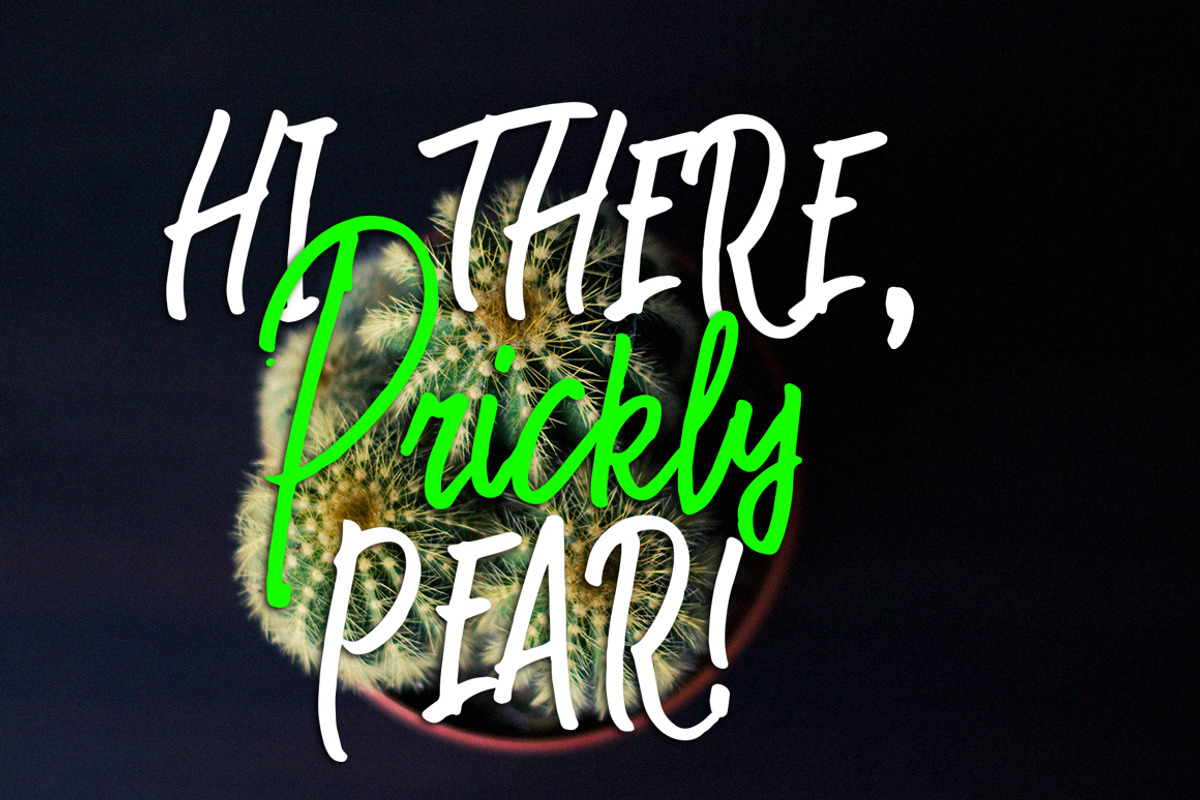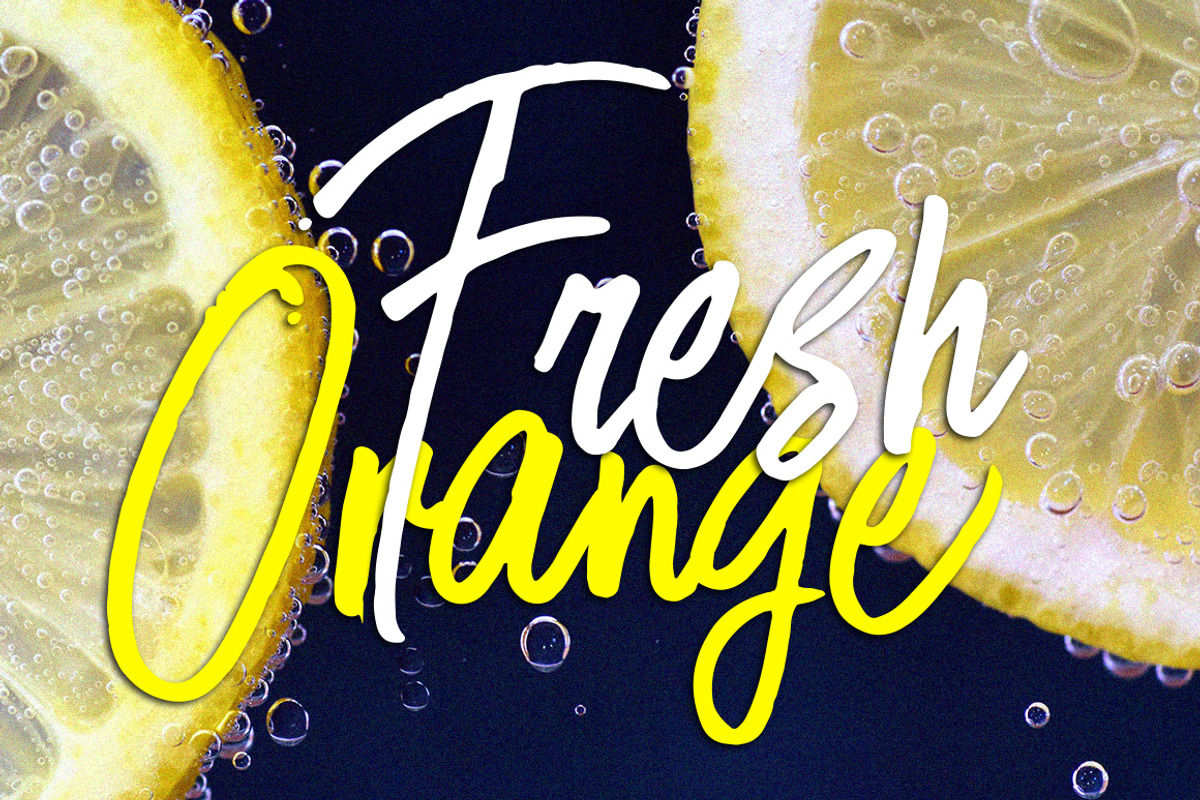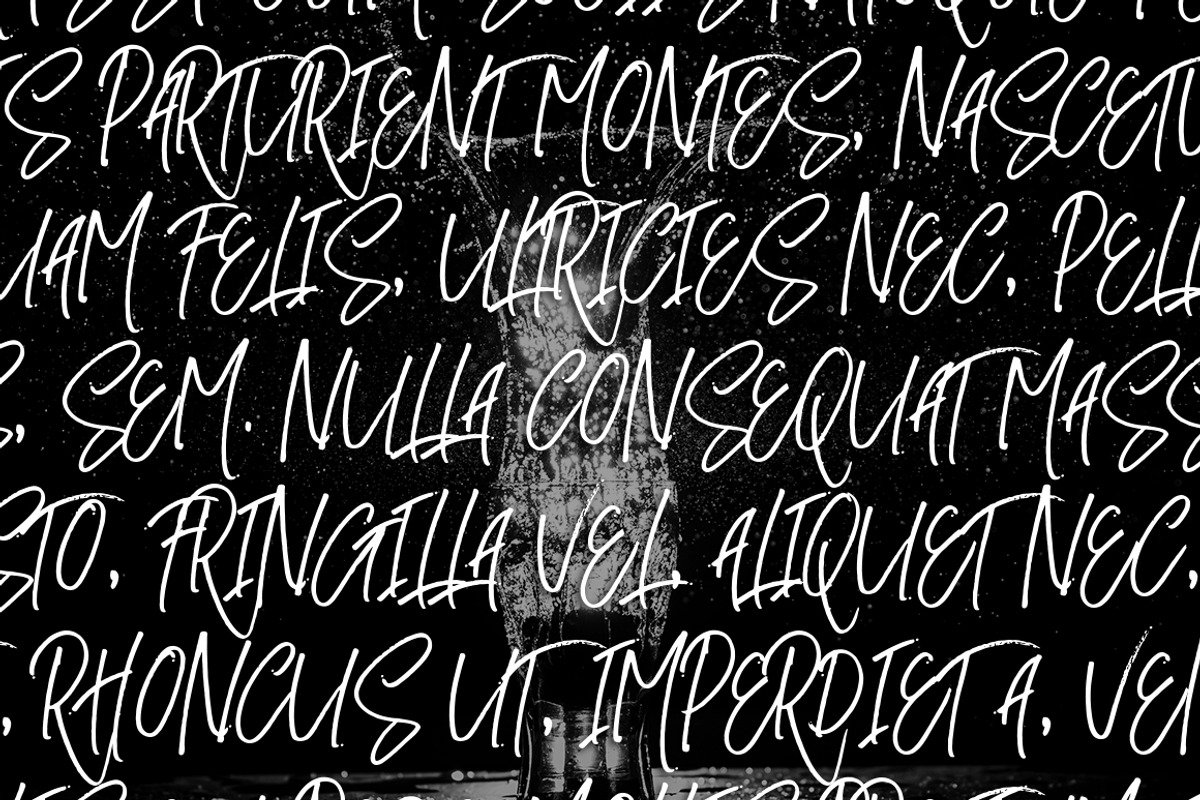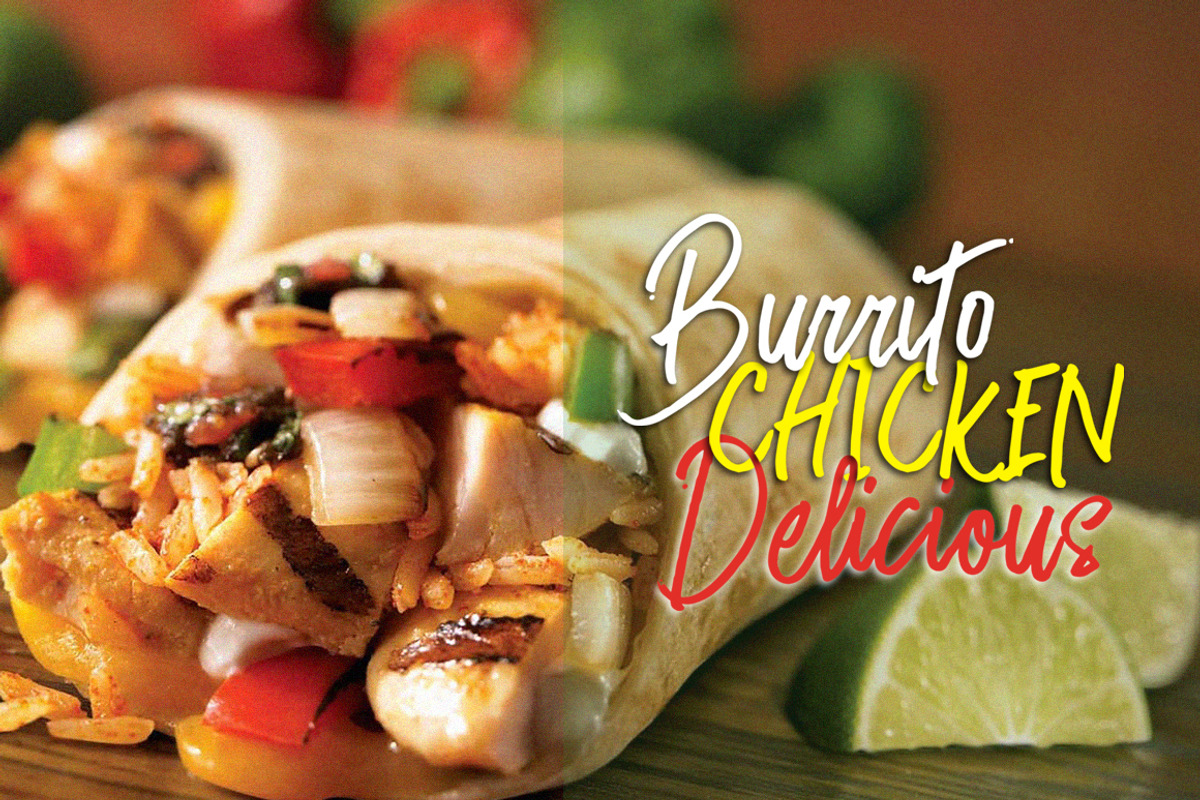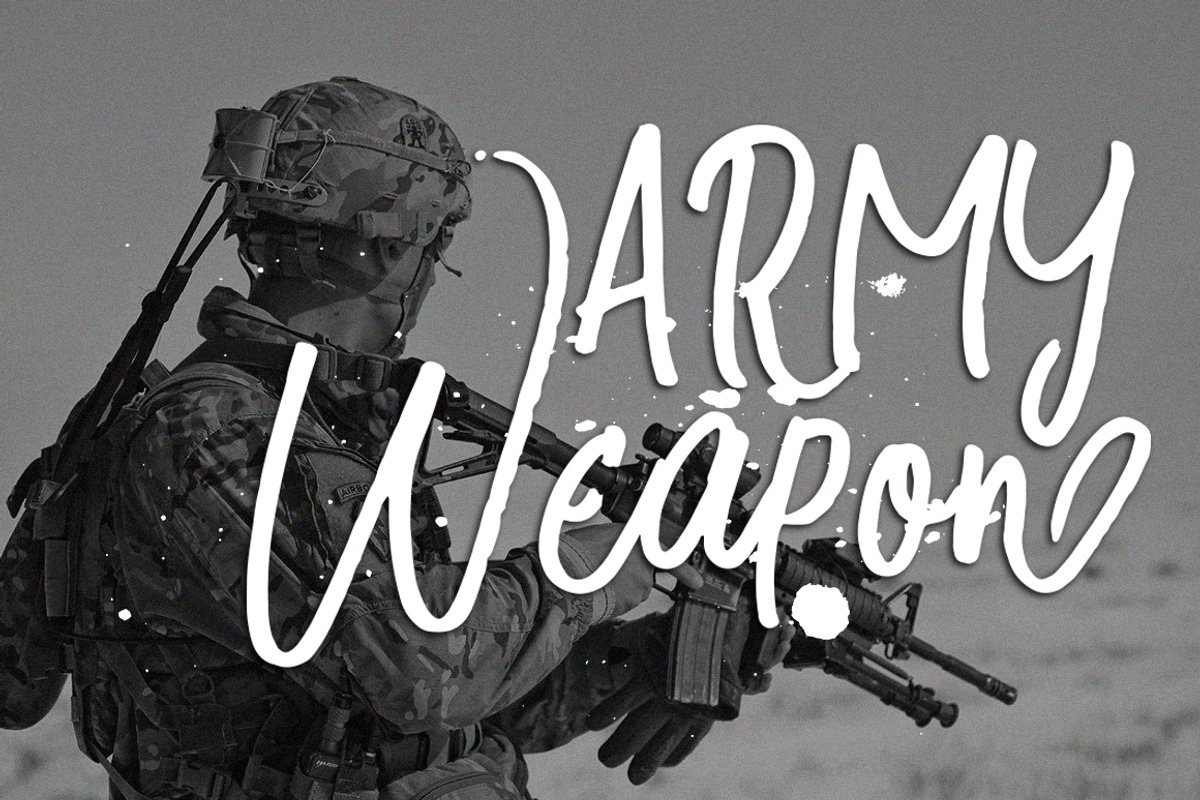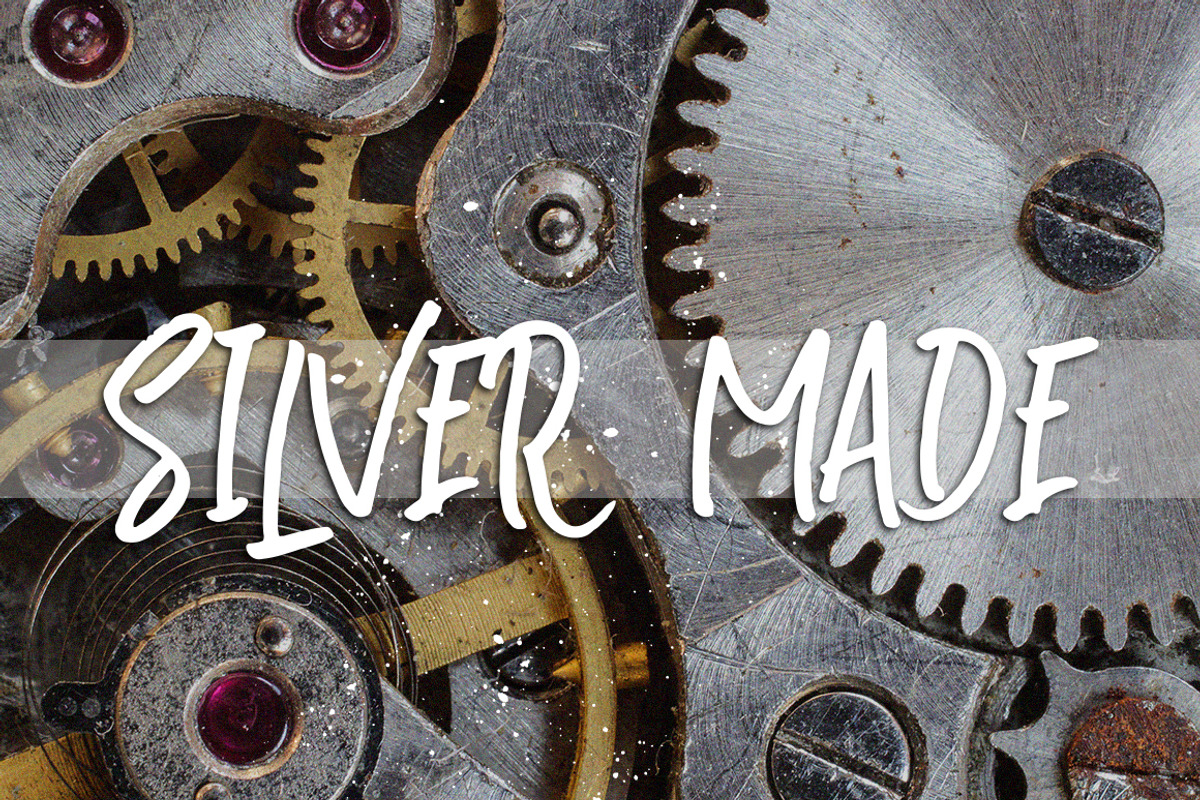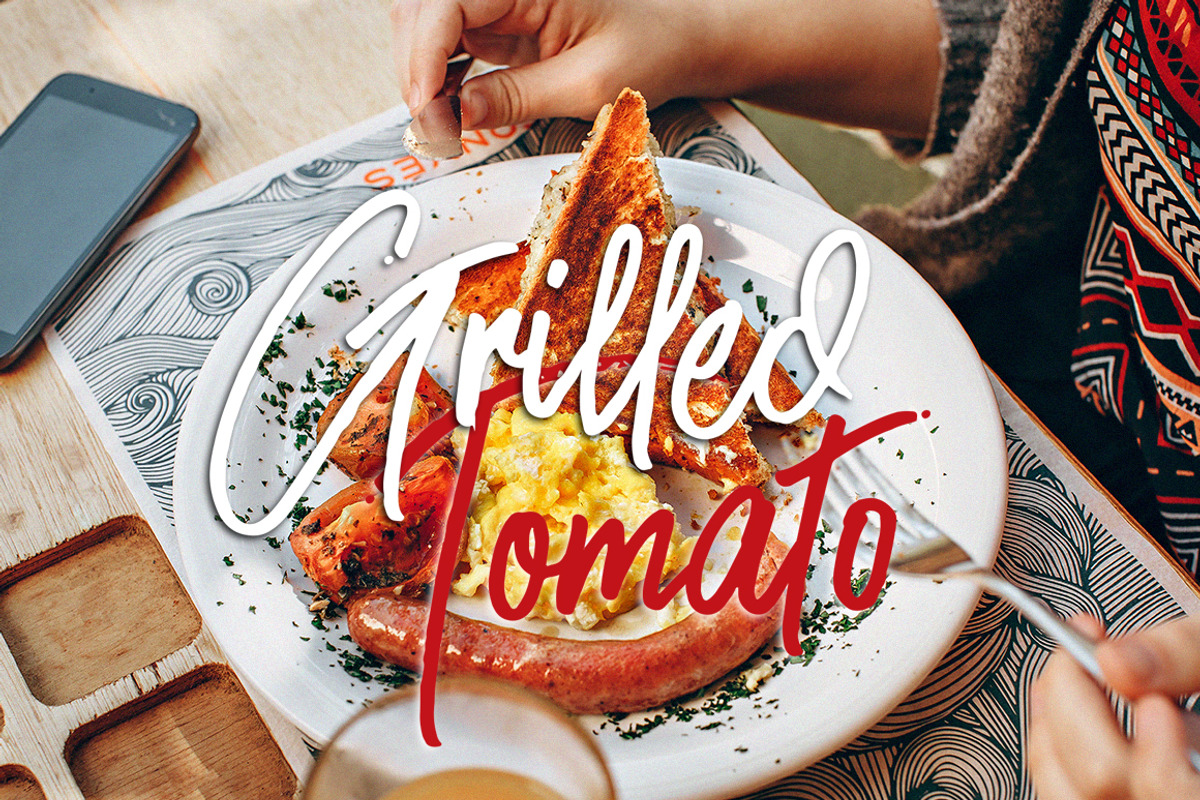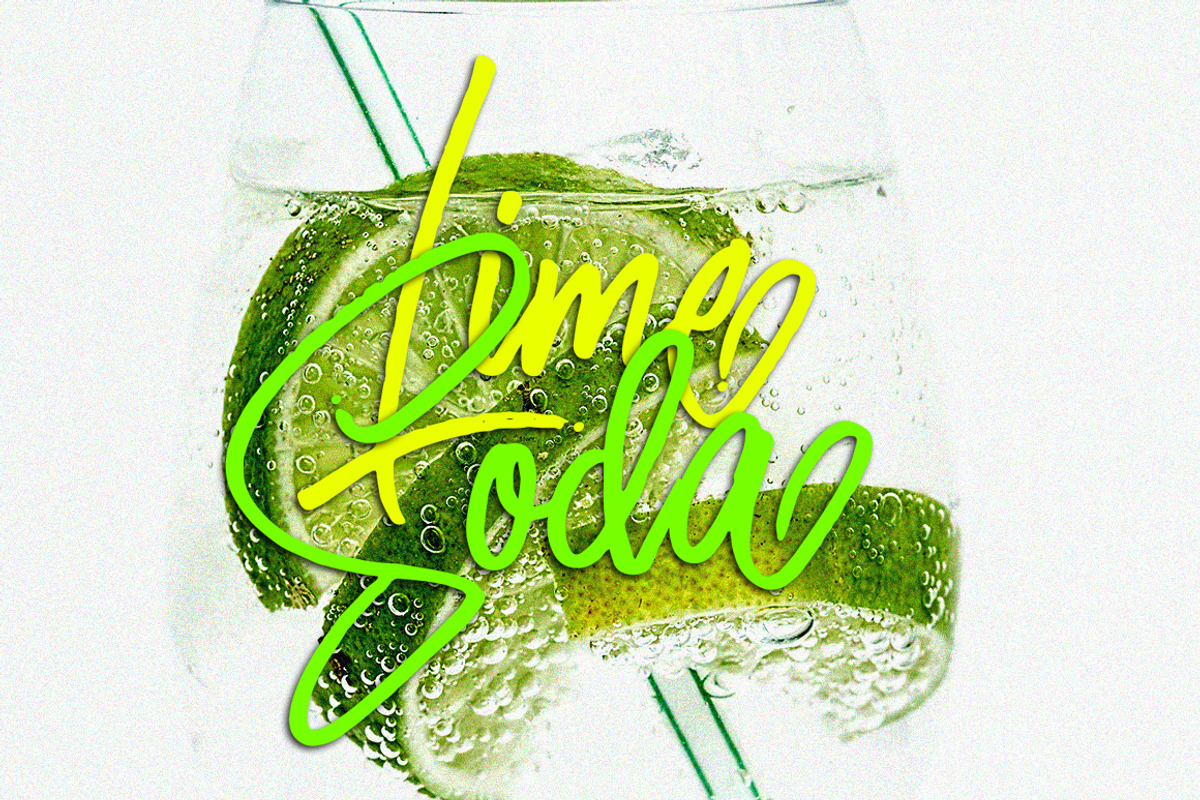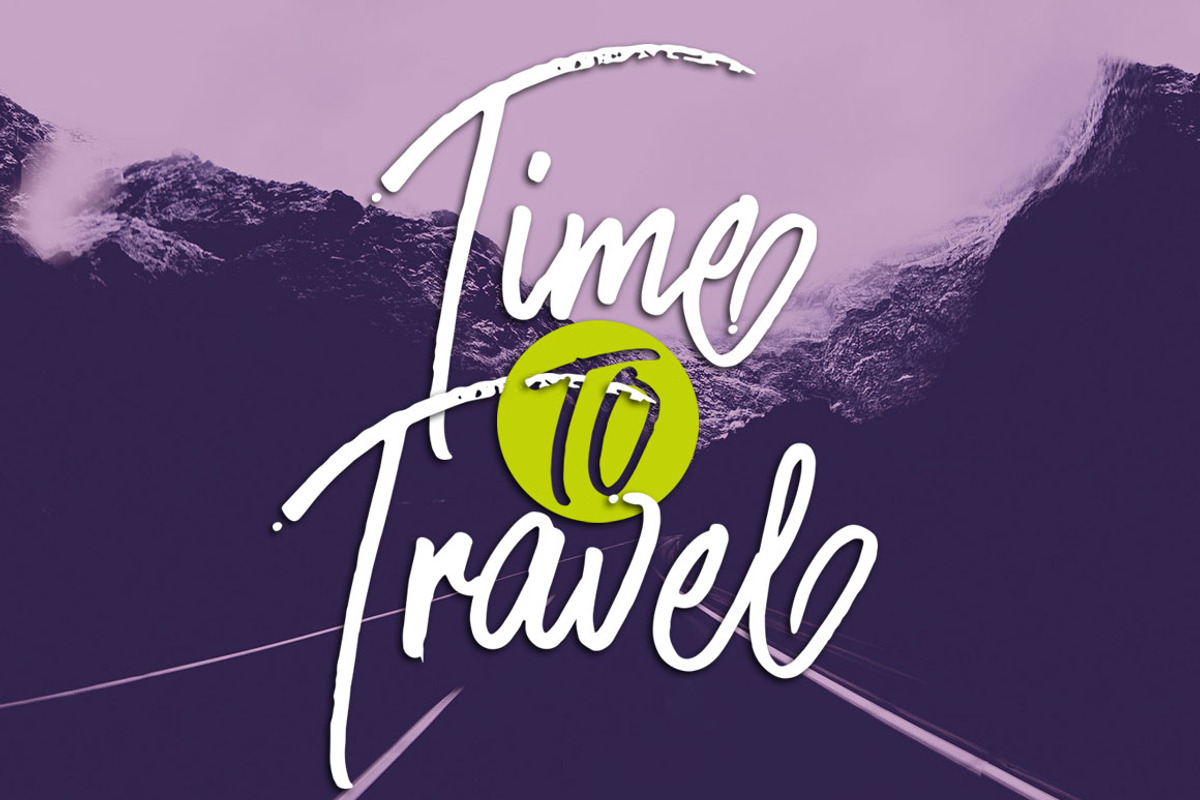
Silver Made Font
Introducing a lovingly handmade new typeface, Silver Made Font, a fun and imperfect modern brushed script font with a tough of uniqueness driven. Design like a professional with this typeface that fits perfectly for your wedding invitations, street ads, Instagram posts, t-shirt design, branding, and much more.